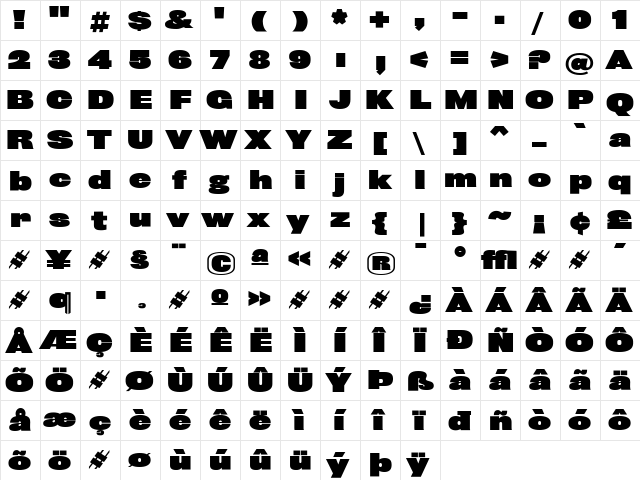
Rhode Regular Font Preview
Rhode Regular
Rhode Regular Font Details
| Foundry | The Font Bureau, Inc |
Design Context for Rhode Typeface
Rhode offers clean, dependable letterforms without strong stylistic allegiance, making it a practical choice for designers who need flexibility.
Pro Tip: Pair Rhode with a font of contrasting weight or personality to build a more expressive typographic hierarchy.